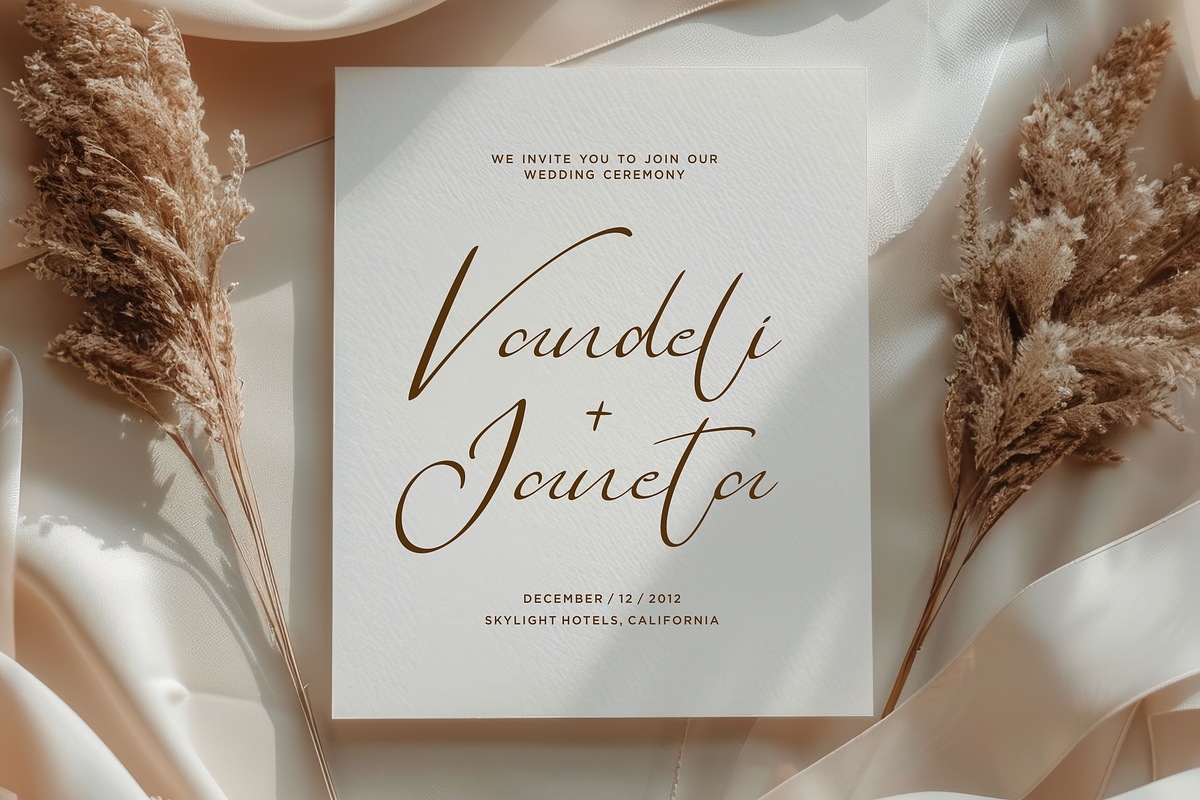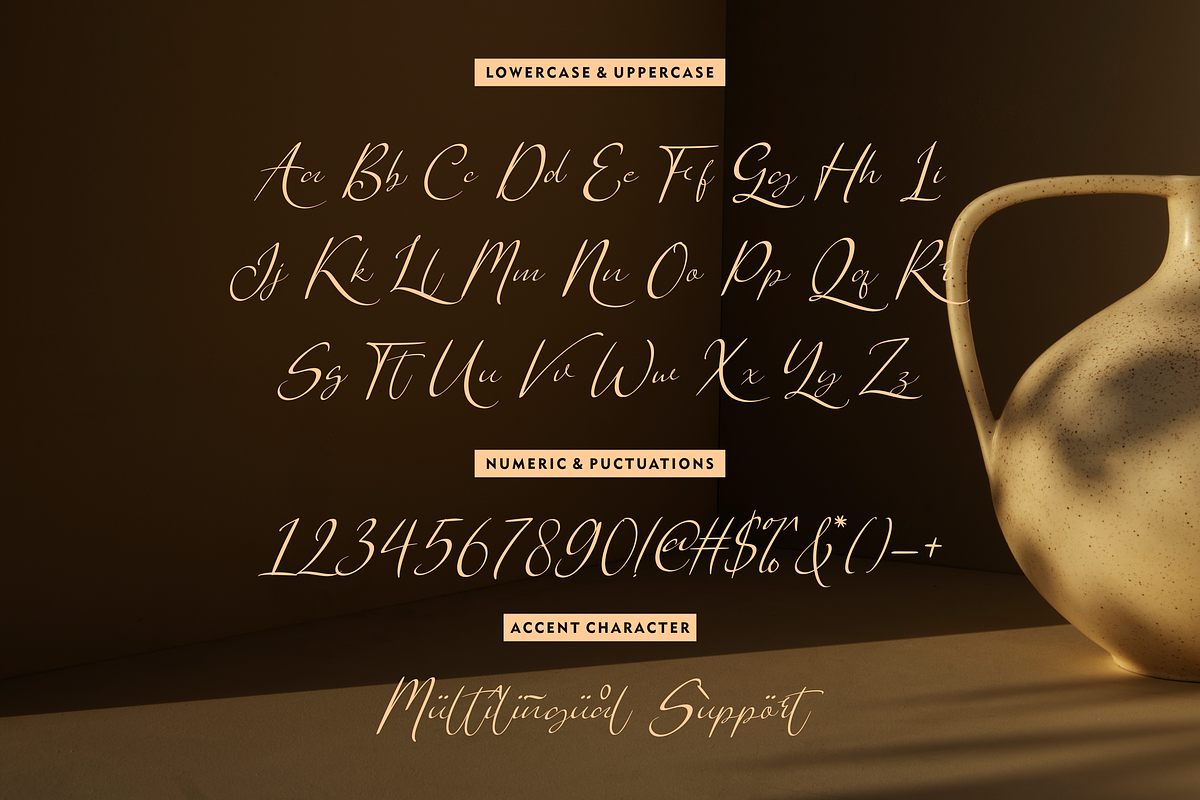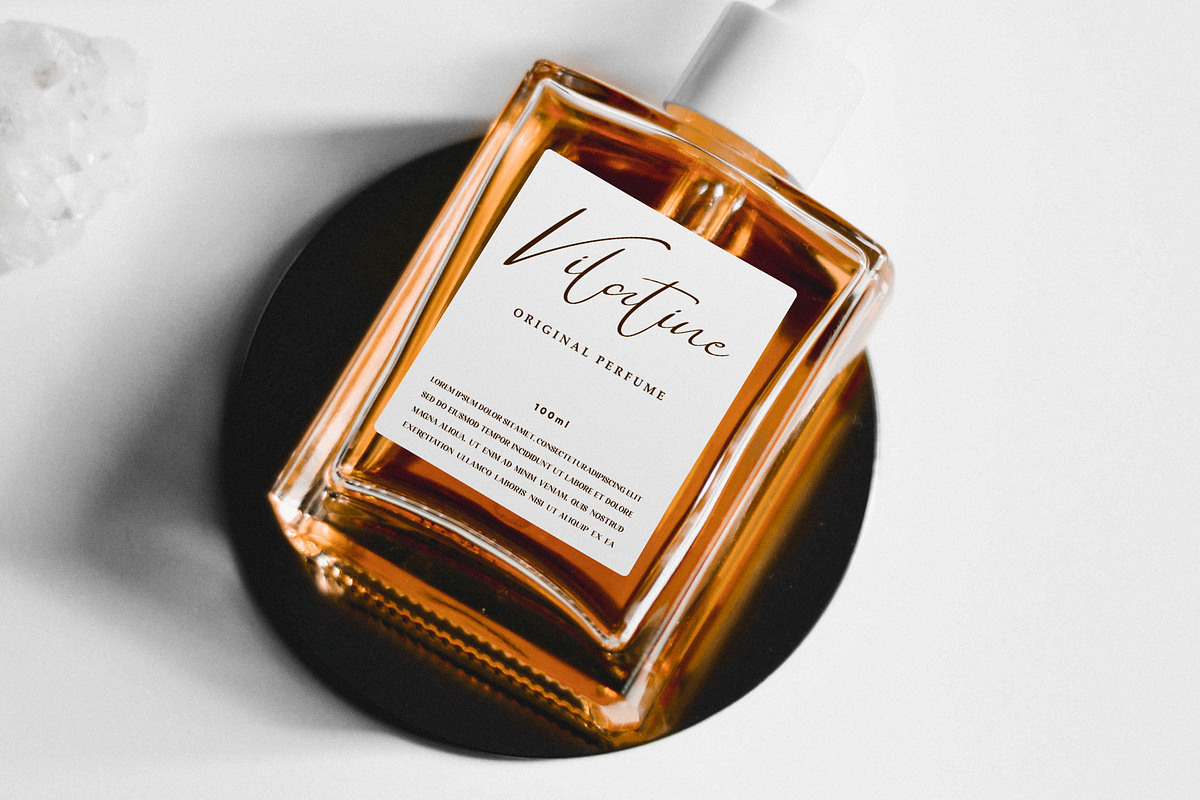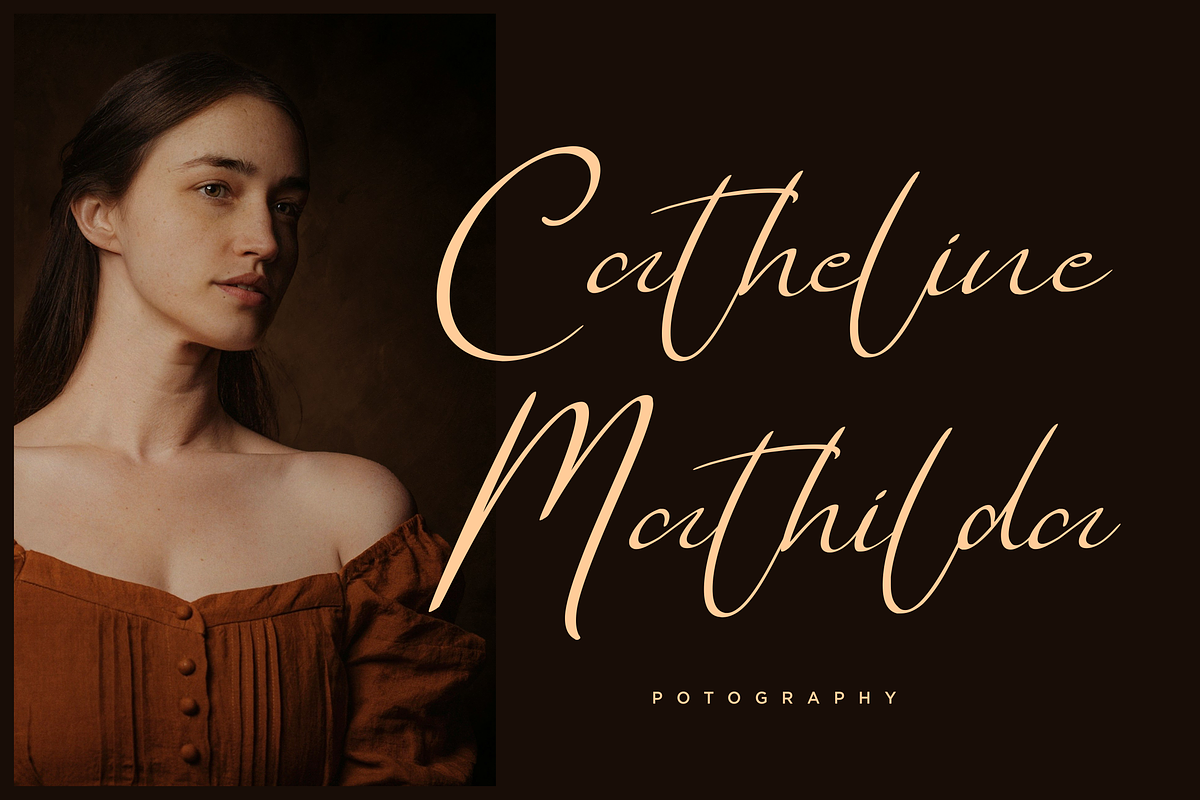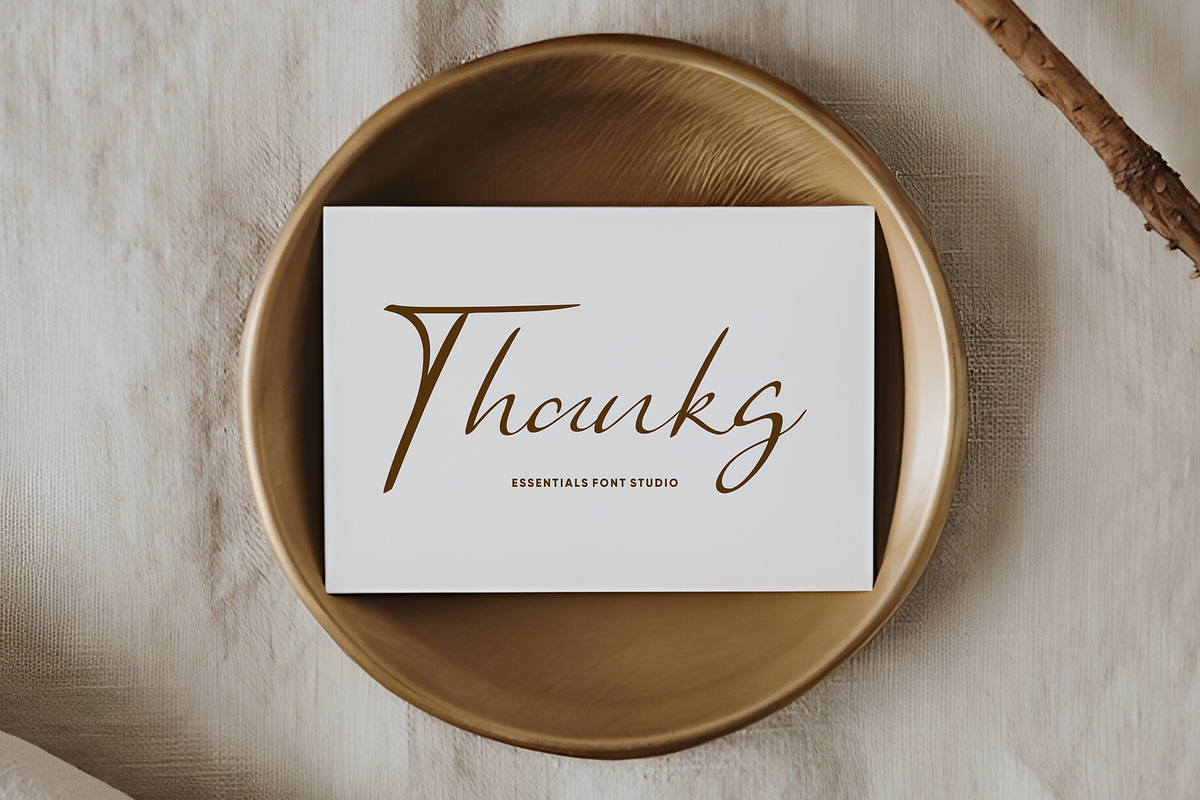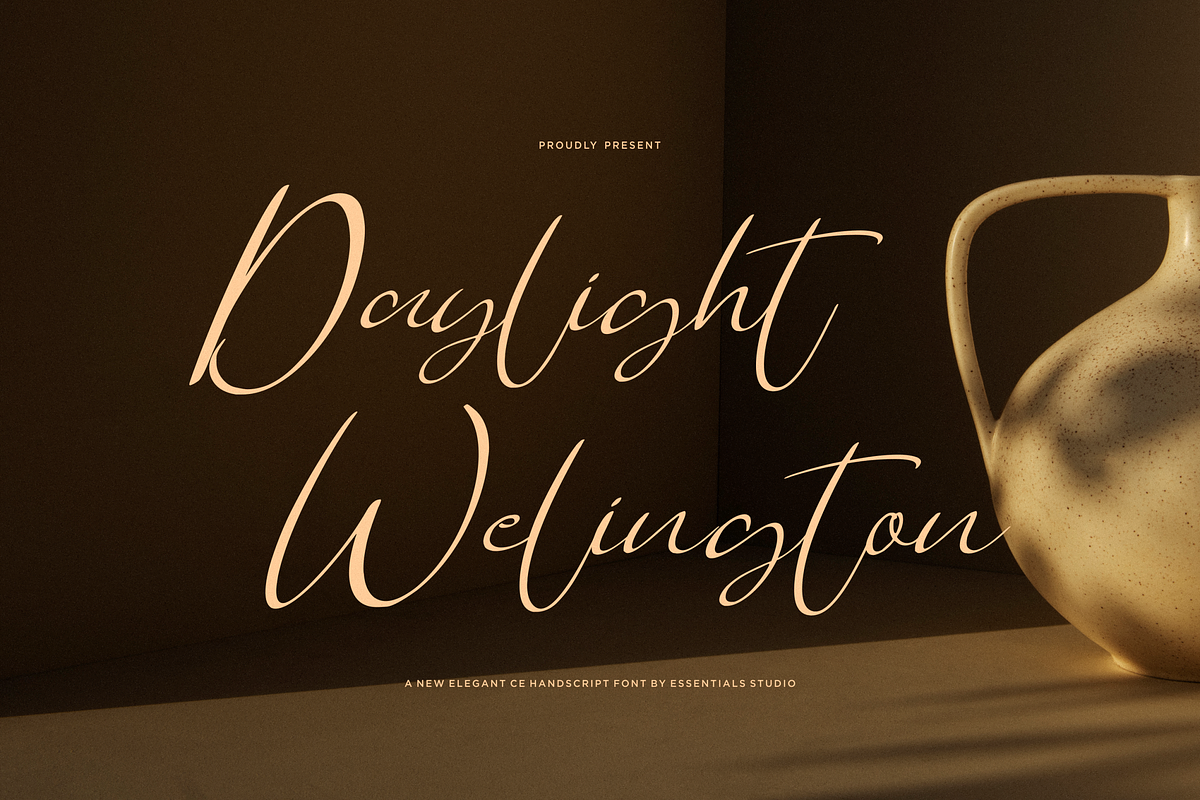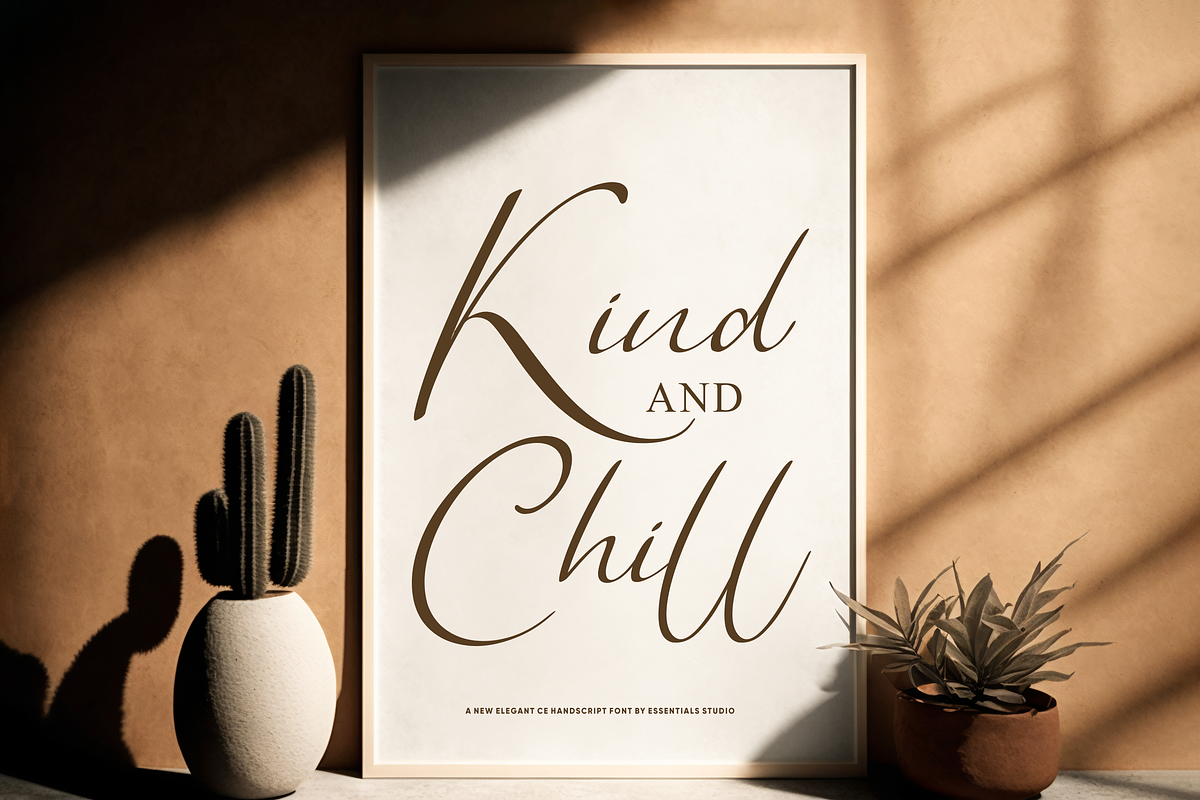
Daylight Welington
Introducing Daylight Welington, a creation of Essentials Studio that effortlessly intertwines elegance and functionality. This gracefully scripted font exudes an air of infinity that is simply spellbinding. With a versatility that makes it ideal for a range of applications, from the delicate art of wedding personalizations to the tactical precision of commercial branding or crafting projects, Daylight Welington offers a seamless blend of style and utility. Embrace the endless charm of this script font and elevate your projects to new aesthetic heights.